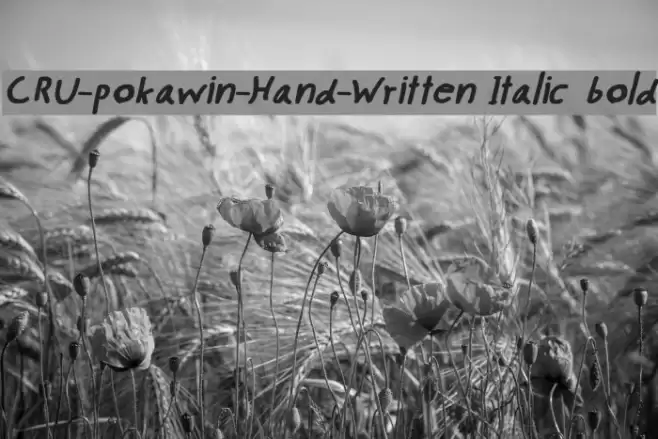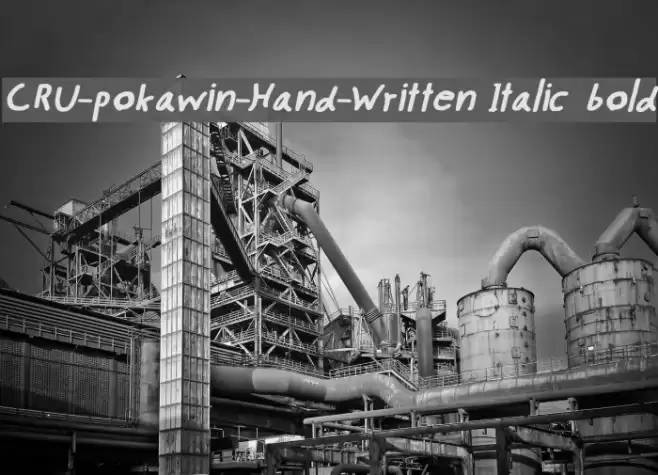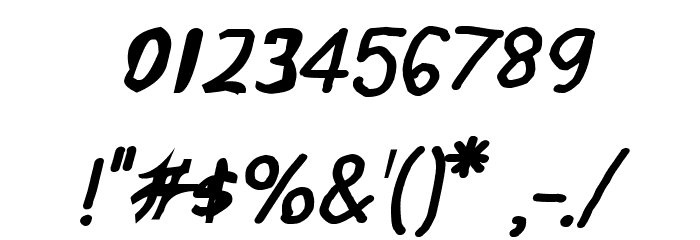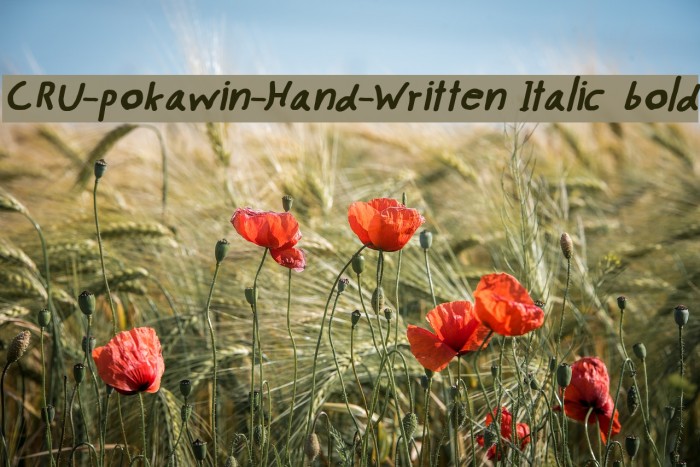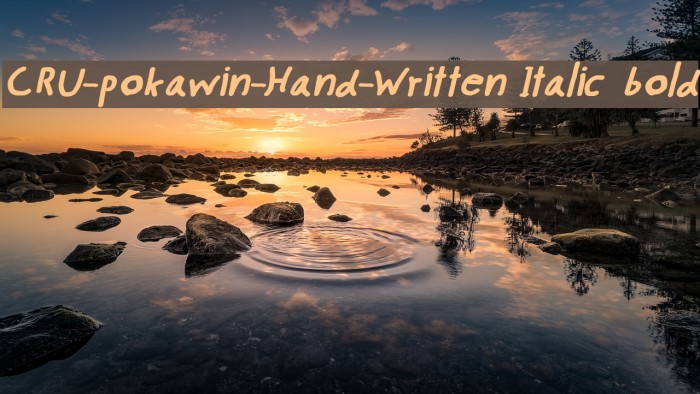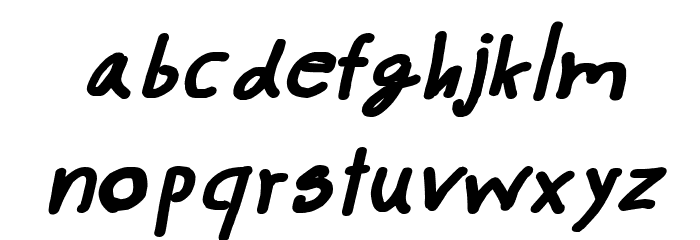
CRU-pokawin-Hand-Written Italic bold Font
CRU-pokawin-Hand-Written Italic bold Description
This font features a playful, handwritten style with a bold and italicized appearance. The characters are slightly slanted, giving a dynamic and casual feel. The strokes are thick and consistent, providing a strong presence on the page. The uppercase and lowercase letters maintain a uniform style, with rounded edges and a smooth flow. Numbers and special characters are designed to match the overall aesthetic, ensuring cohesion across all text elements. This font is ideal for projects that require a personal touch or an informal tone.
A bold, italic, handwritten font with a playful and casual style from Uncategorized fonts.
- Proposed Projects: Great for greeting cards, invitations, personal branding, and creative projects that benefit from a handwritten touch.
- Overall Style: Casual
- Use Case: Logos, Headlines, Creative projects